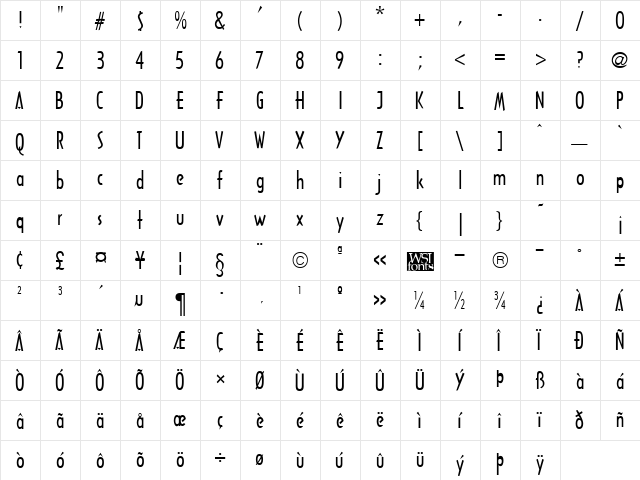
Arcane Regular
Design Context for Arcane Typeface
Arcane offers clean, dependable letterforms without strong stylistic allegiance, making it a practical choice for designers who need flexibility.
Pro Tip: Use Arcane in both headline and body roles to test its range before committing to a single application.